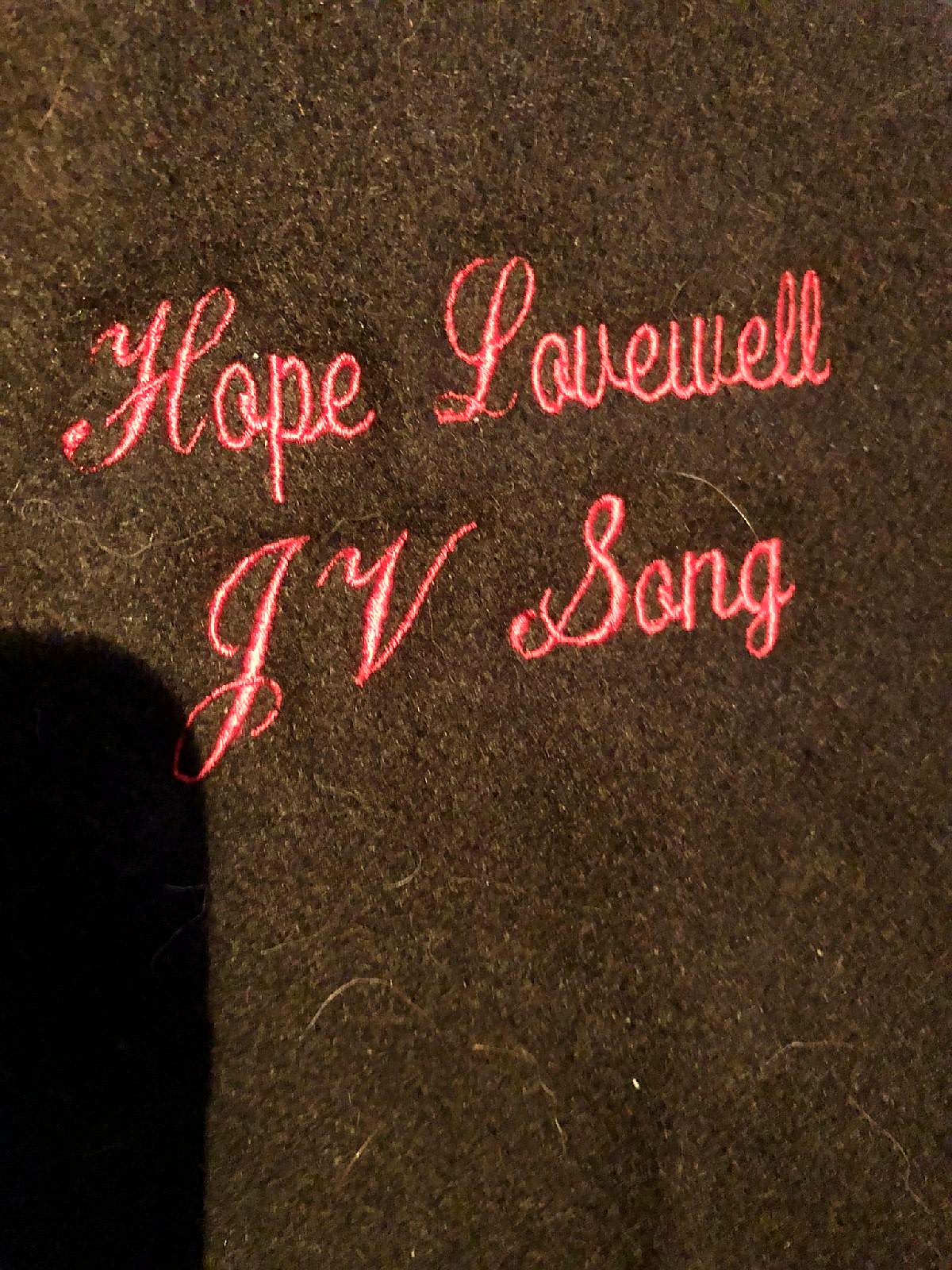
can someone please identify this font
The caps are very close to Commercial Script (a lighter weight, but the type design is the same). The lowercase letters are from another font.
any idea what the second may be